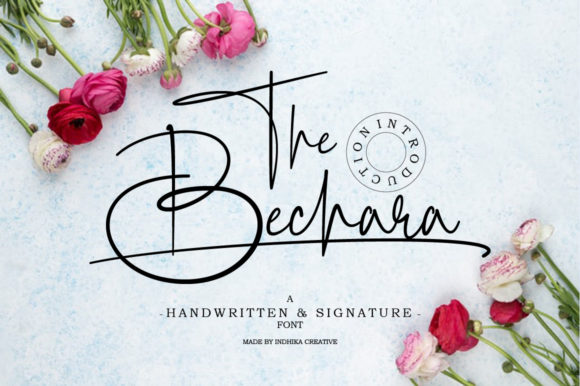
The Bechara Font
Welcome to the world of The Bechara Font, a captivating script font family that will ignite your creativity and leave a lasting impression on your designs. Enter a realm where elegance and simplicity intertwine, where every letter dances across the page with a touch of grace and sophistication.
The Bechara Font is not just a mere collection of characters; it's an artistic expression that reflects the beauty of handwritten notes. This thin and elegant font is meticulously crafted to evoke a sense of intimacy and authenticity. Imagine the joy of receiving a heartfelt letter penned with The Bechara Font—a testament to the enduring power of handwritten communication.
Whether you're a seasoned designer or just starting your creative journey, The Bechara Font is your perfect companion. Its versatility knows no bounds, effortlessly adapting to a multitude of projects, from signature logos to branding, and from social media graphics to wedding invitations. Let your imagination run wild and witness the wonders that unfold when The Bechara Font graces your designs.
Indhika, the creative mind behind The Bechara Font, has poured their heart and soul into this masterpiece, ensuring that each character exudes personality and charm. The font's PUA encoding allows for effortless access to a treasure trove of glyphs and swashes, empowering you to add a touch of flair and individuality to your projects.
Elevate your designs with The Bechara Font, and watch as it transforms your words into works of art. Every stroke, every curve, every line is a testament to the beauty of handwritten expression. Dive into the world of The Bechara Font and unlock a world of endless creative possibilities.